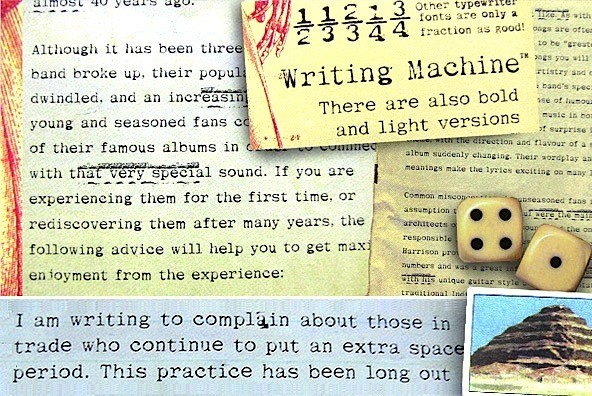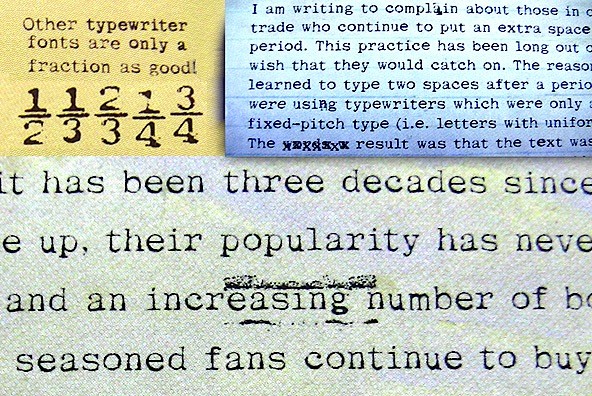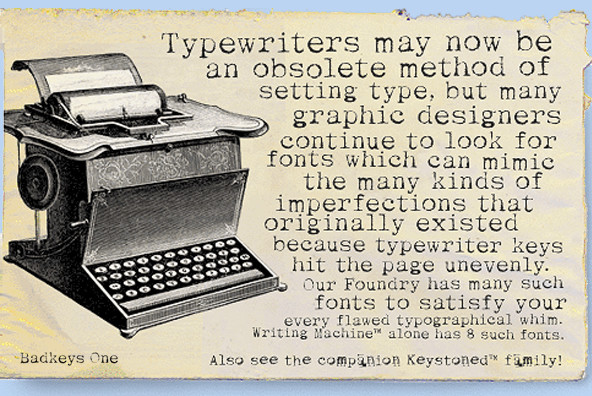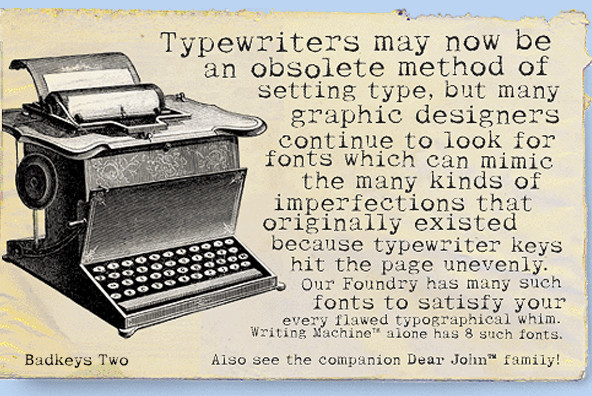
Writing Machine
Writing Machine™ was designed to simulate the characters produced by an antique typewriter. Original typewriters from the 19th century were often referred to as "Letter Writing Machines". The original scans for these letterforms were taken from the actual imprints made by Grandma's typewriter.
USING WRITING MACHINE™
a) The Light and Bold versions are just as labelled. The four fonts called Writing Machine™ Badkeys™ are intermediate versions, because they contain both the light and bold characters--however, the bold and light are applied disproportionately on many characters. Old typewriters often had mechanism problems which prevented the keys from hitting the page squarely. Often the bottom of the key would hit the page a little harder, causing the ribbon to distort the bottoms of the printed letterforms. The Badkeys™ reflect this kind of key action. Characters which are not bolded at the bottom of Badkeys™ One can be found bolded in Badkeys™ Two, and vise versa. Also note that some of the light characters in Badkeys™ are more broken and faded than they are in the Writing Machine™ Light fonts.
d) Depending on the words you are setting and the point size you are setting them in, you may want to mix characters from all the families. By alternating characters from the Regular and the Bold fonts you can achieve some interesting effects. You can do this for duplicate characters that appear in the same words, or you can do a full search and replace for particular characters using your layout software. The alternation between the Regular and Bold fonts further enhances the grunge effect. Also note that some of the accented vowel characters are different from their root characters, and can be used as alternates by masking the accents.
e) To further create interesting effects with this font, you might try alternating the upper and lower case characters. Replacing the uppercase vowels with lowercase characters can look particularly effective.
EXTRA CHARACTERS
Writing Machine™ and Keystoned™ families both have 241 printable characters per font (almost all of them unique from font to font). These characters include 6 fraction characters, some taken from the original typewriter keys. For PC users, these fractions can be accessed by using the following keyboard commands:
FULL CHARACTER SET
Each font in the Writing Machine™ family has a full character set of 232+ letterforms, with all characters designed in the style of the font.